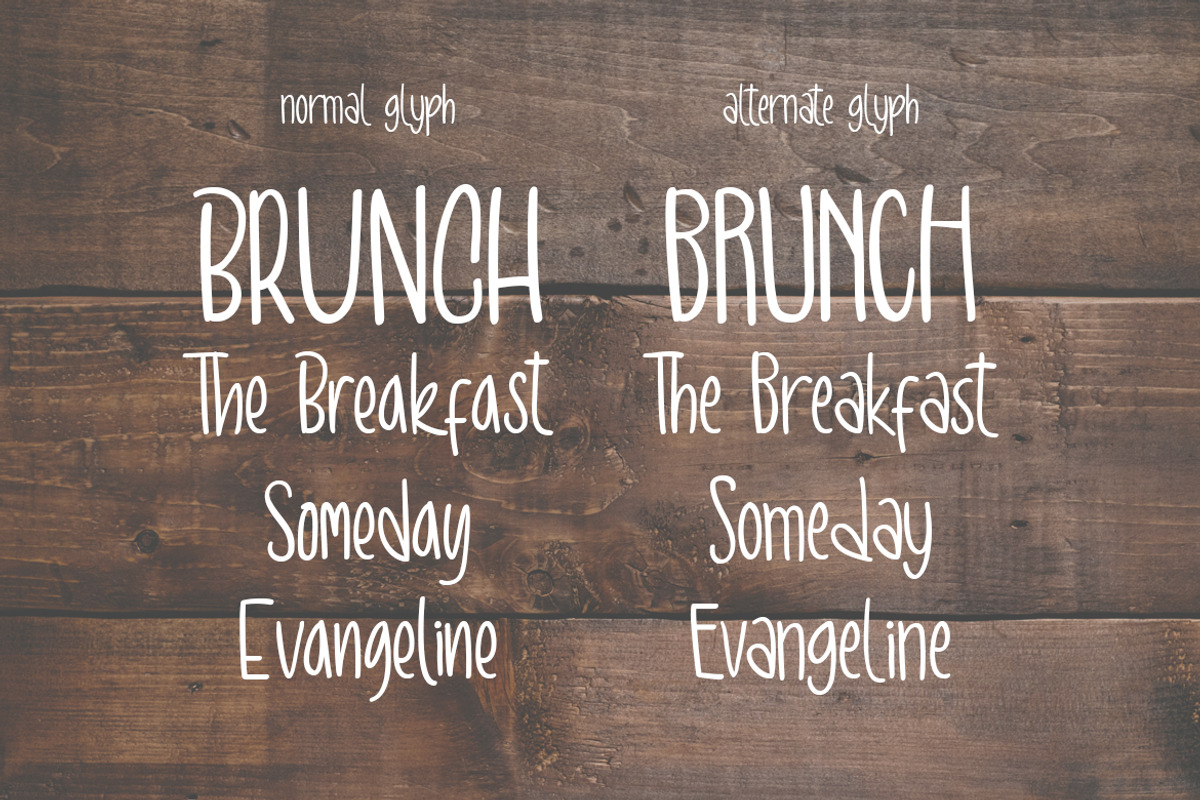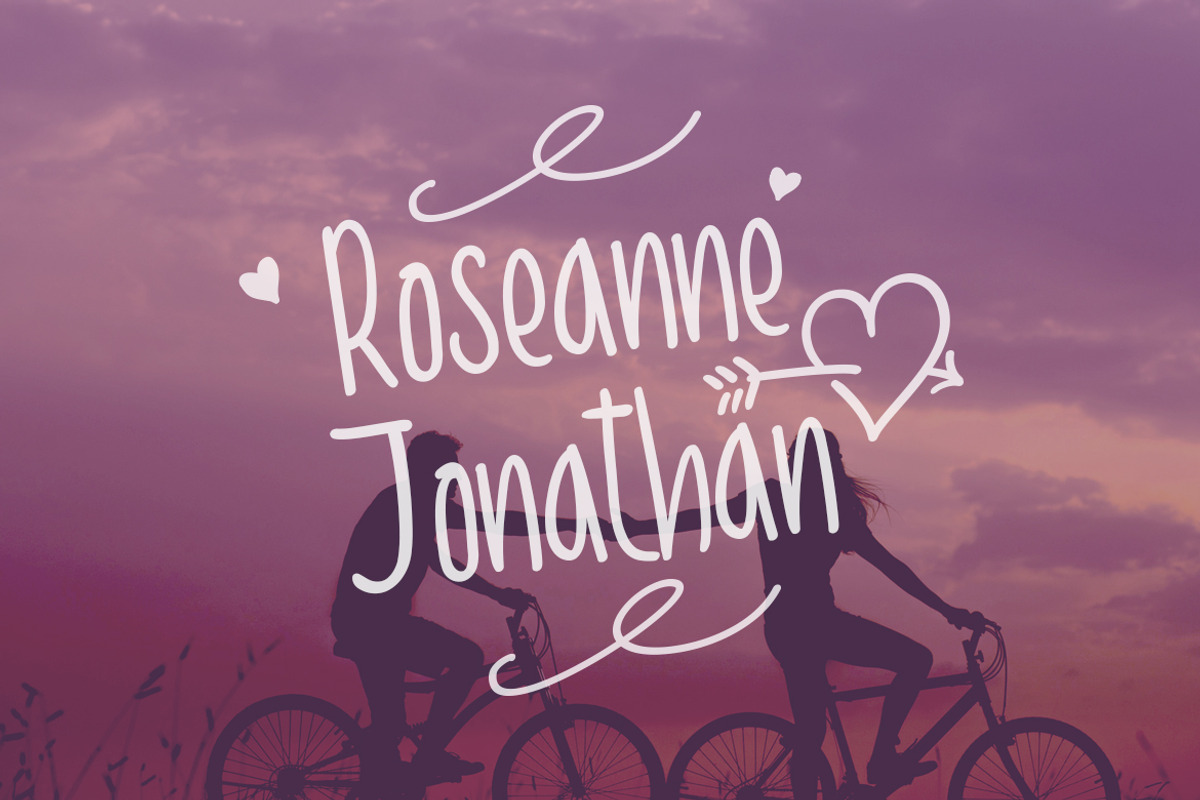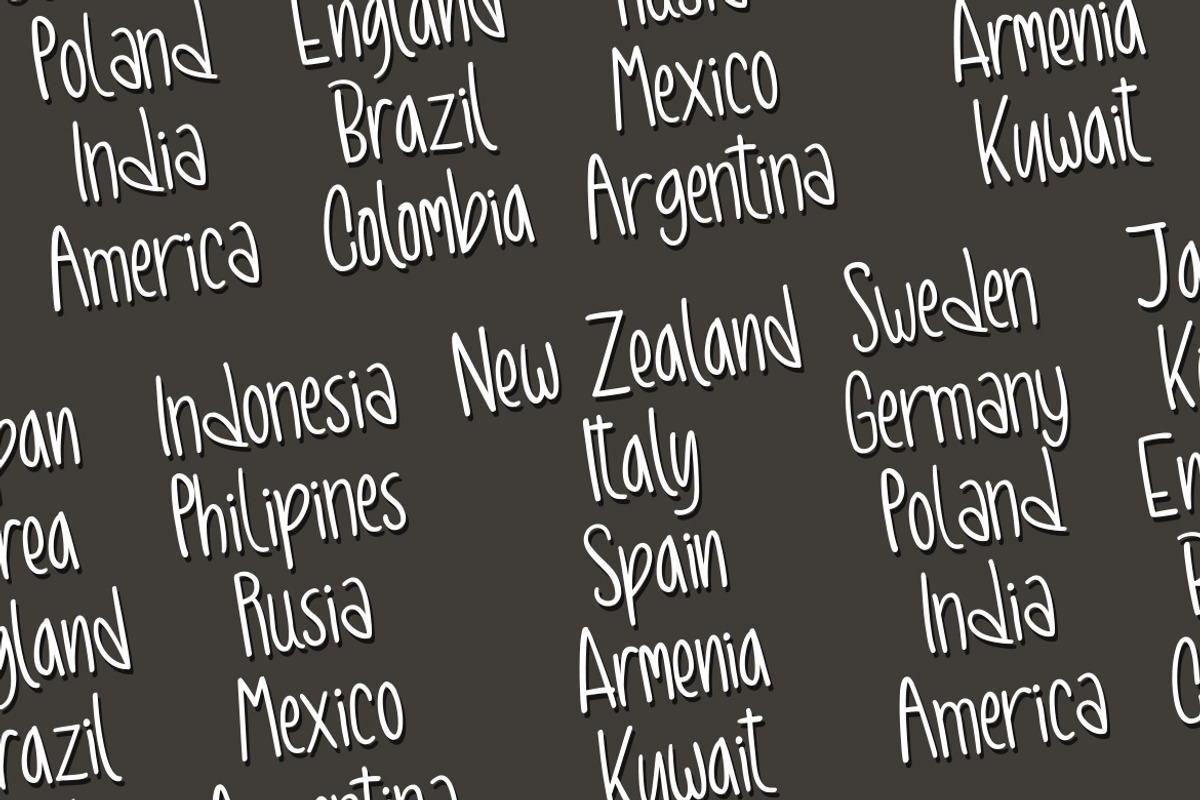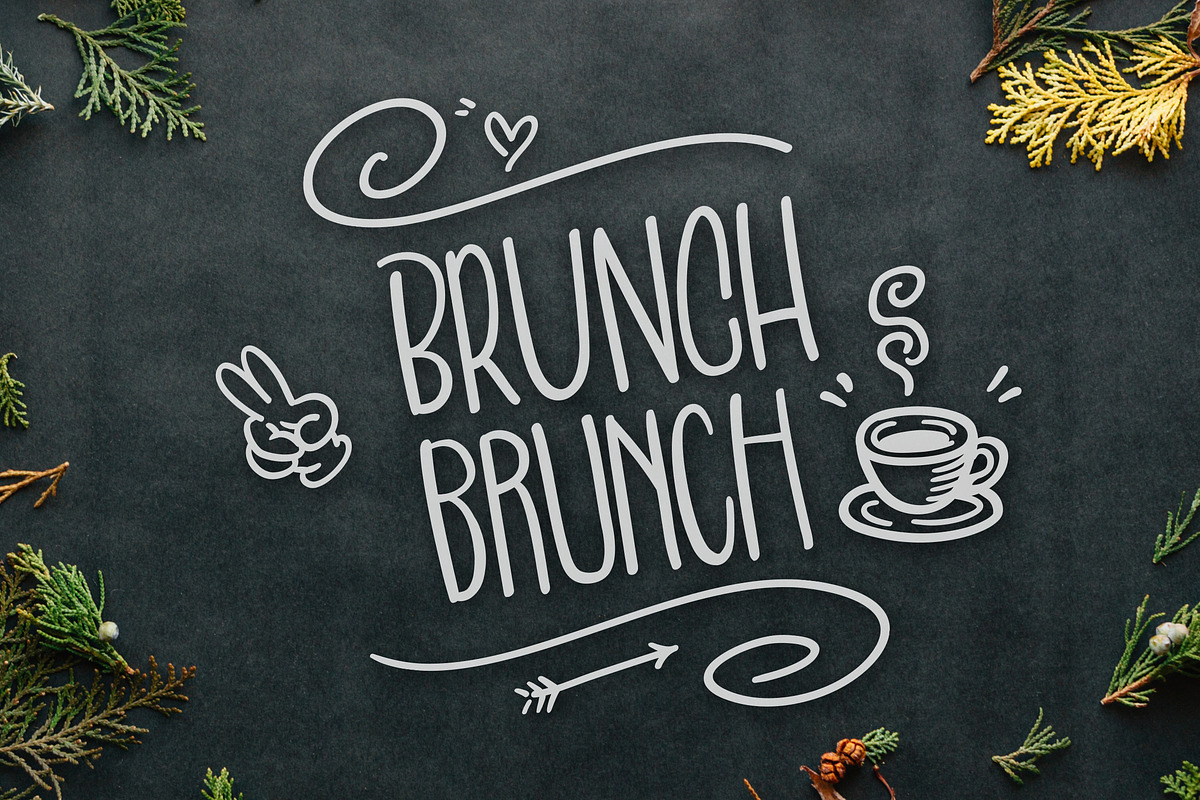
Brunch Brunch Font
A beautifully handwritten & designed font, Has a condensed, fun & young feel. Can be used for any purpose.
Brunch Brunch Font by Suhandi fits naturally into Branding, posters, packaging, typography.